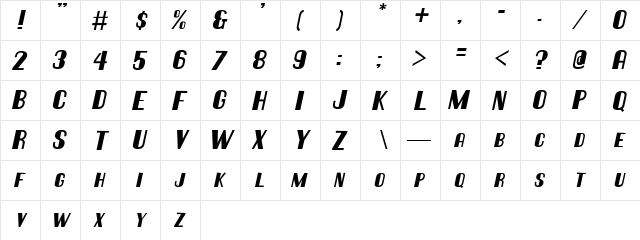
Hallandale Deco Bd It. Smc JL Regular
| Foundry | Jeff's Fonts & Dingbats |
| Designer | Jeffrey N. Levine |
Design Context for Hallandale Deco Bd It. Smc JL Typeface
Hallandale Deco Bd It. Smc JL takes a measured approach to typography — its balanced proportions and neutral character make it a reliable workhorse for both digital and print work. The heavy weight commands attention and anchors typographic hierarchies.